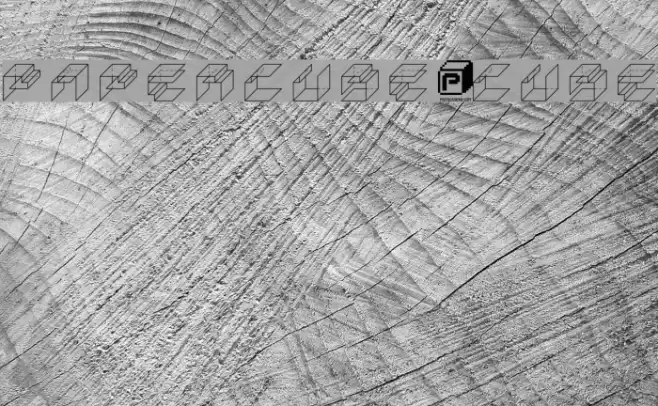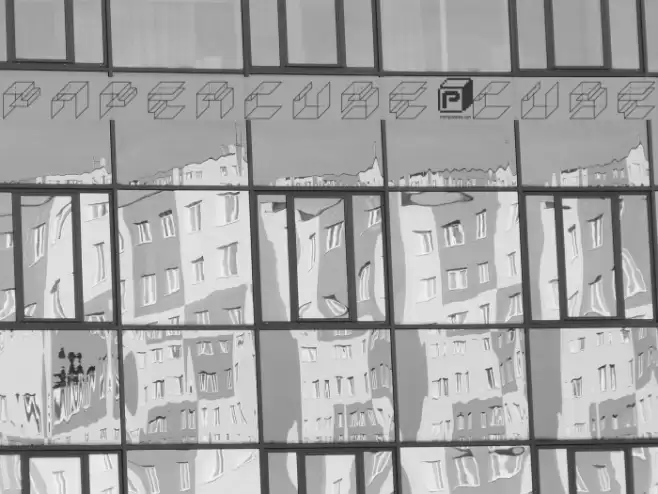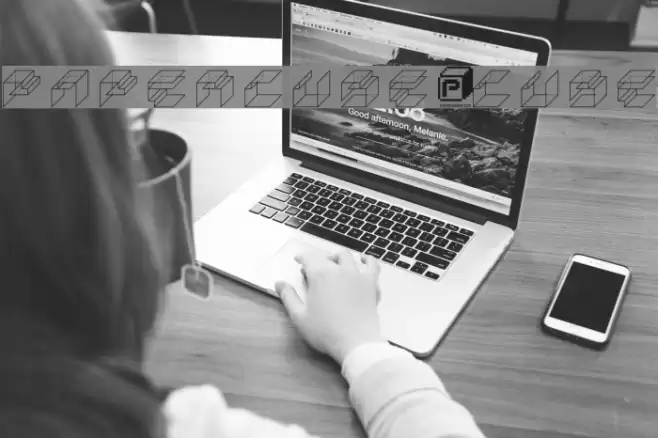
PaperCube-Cube Font
PaperCube-Cube Description
This font features a unique 3D geometric design, resembling folded paper or cubes. Each character is constructed with sharp angles and clean lines, creating an illusion of depth and dimension. The style is highly decorative, with a modern and playful aesthetic. The uppercase and lowercase letters maintain a consistent structure, while the numerals and special characters follow the same geometric theme. This font is visually striking and stands out due to its intricate design and the optical illusion it creates.
A 3D geometric font with a modern, playful design from Uncategorized fonts.
- Proposed Projects: Ideal for creative projects such as posters, branding, and packaging design where a bold, eye-catching font is needed.